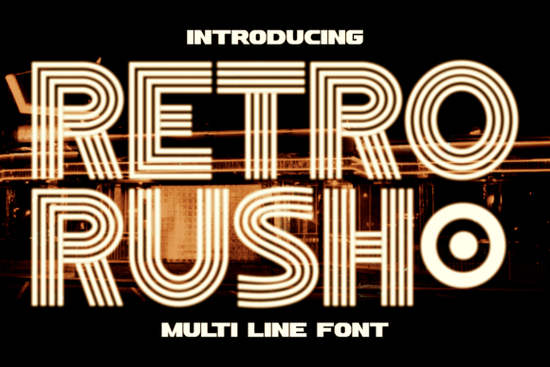
If you've been scrolling through display fonts looking for something that blends vintage charm with a bold, modern edge, Retro Rush Font is worth a closer look. It's a multi-line typeface inspired by art deco geometry and 1980s neon signage the kind you'd see lighting up old movie theaters and nightclubs. The layered line design gives each letter a structured, glowing quality that works especially well against dark backgrounds. For designers, print-on-demand sellers, and anyone working on branding or social media graphics, this font fills a specific gap between classic and electric.
What makes Retro Rush Font stand out from other retro typefaces?
Plenty of fonts claim a "retro" look, but most just round the corners or slap on a distressed texture. Retro Rush takes a different approach. Its symmetrical, geometric letterforms draw directly from 1920s art deco architecture and signage think the Chrysler Building or old Hollywood theater marquees. At the same time, the multi-line layering adds that warm, electric glow reminiscent of 1980s neon.
The result is a font that doesn't just look vintage it feels like a specific moment in design history, updated for modern use. The high-contrast strokes and clean edges keep it readable at large sizes, which is exactly what you want from a display typeface.
What kinds of projects does it work best for?
Because of its bold, structured style, this font really shines in situations where you need to make an immediate visual impression. Here are some practical uses:
- Logos and wordmarks especially for brands with a luxury, nightlife, or vintage theme
- Poster and flyer design event promotions, movie titles, festival branding
- Packaging product labels, box designs, and wrappers that need a nostalgic feel
- Social media graphics Instagram posts, YouTube thumbnails, Pinterest pins
- Invitations and cards party invites, wedding save-the-dates with a retro twist
- Magazine covers and editorial layouts headline typography that demands attention
- Print-on-demand products t-shirts, mugs, tote bags, and wall art
If you sell on platforms like Etsy, Redbubble, or Shopify, a distinctive font like this can help your products stand out in crowded search results. Pair it with a dark background and a warm color palette, and you've got an instant retro-futuristic aesthetic.
How does it compare to other Creative Fabrica fonts?
Creative Fabrica has a solid library of display fonts, and the right choice really depends on the mood you're going for. If you need something playful and whimsical, Magic Unicorn brings a fun, fantasy-inspired energy that works well for kids' products and party themes. For projects that need a delicate, monogram-style touch like wedding stationery or boutique branding this ornamental script inspired by Fishtail Monogram adds elegance without being overly formal.
On the brighter side, a bold, cheerful option like Juicy Lemon is great for food branding, summer campaigns, and anything that needs a burst of personality.
Retro Rush sits in its own lane it's bolder and more geometric than most alternatives, with that layered multi-line structure you won't find in typical retro fonts. If your project calls for sophistication with an electric edge, it's the strongest pick from this group.
Any tips for using multi-line display fonts effectively?
Multi-line fonts like this one are visually dense by nature, so a few design principles help:
- Keep surrounding elements minimal. Let the font be the focal point. Too many competing visuals will make the layout feel cluttered.
- Use high contrast backgrounds. Dark backgrounds especially bring out the neon-like quality of the layered lines.
- Limit your text. This is a display font use it for headlines, titles, and short phrases, not body copy.
- Pair it with a simple sans-serif. A clean, neutral font for supporting text keeps the hierarchy clear.
- Test at your final size before committing. Display fonts can look different at small sizes than they do in preview thumbnails.
- Choose a dark or muted background to maximize the layered effect
- Use it for short, impactful text headlines, logos, or titles
- Pair with a simple body font to maintain readability
- Save a version with and without effects so you have flexibility for different projects